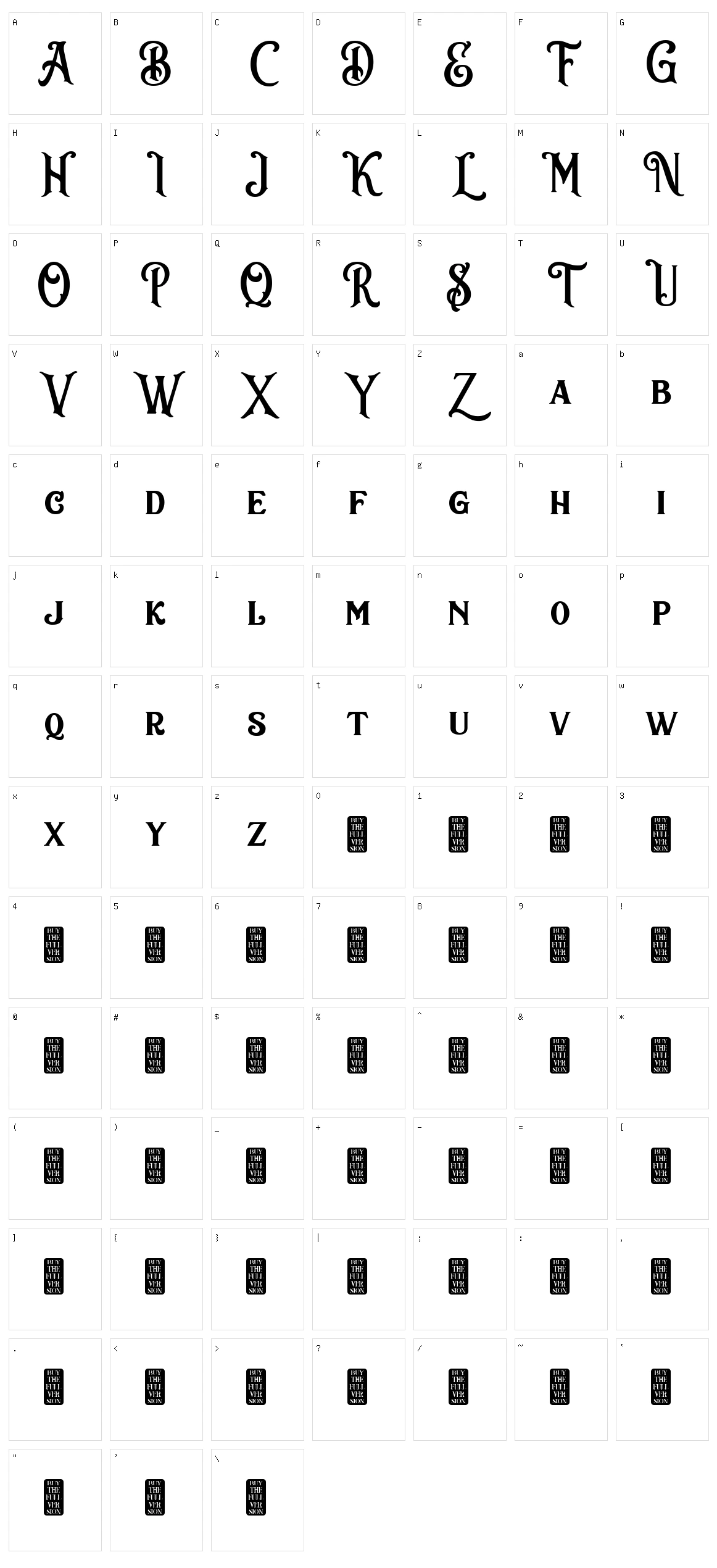
The free font Sacred Bridge is carefully designed by Bombastype, showcasing a thoughtful balance of creativity and usability and falls under the Retro font style. When you download the ZIP file, it contains only 30.48 KB of font files, making it lightweight and quick to download. Please review the license details below to understand permitted usage and distribution rights. If license information is not available, we recommend using this font for personal projects only or contacting the author directly for commercial usage permissions.